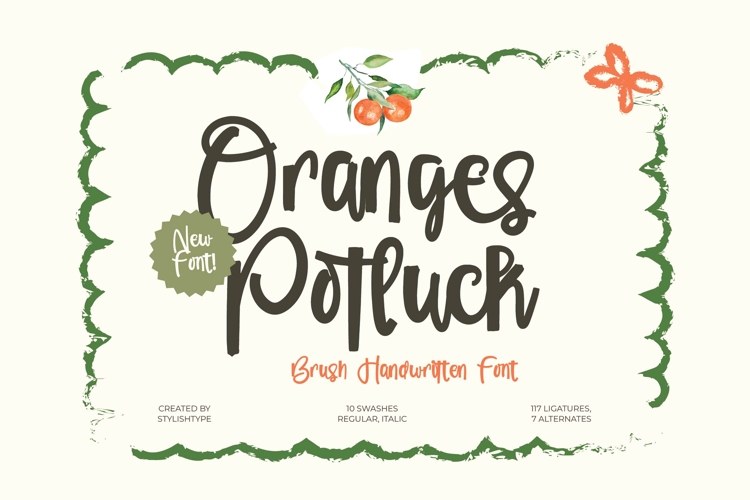
Orange Potluck - Brush Handwritten Font
Orange Potluck - Brush Handwritten Font is the definitive choice for designers seeking to inject genuine warmth and handcrafted personality into their projects. This premium script typeface captures the vibrant spontaneity of an actual brush stroke, delivering a beautiful, flowing aesthetic with noticeable texture variation. Its highly legible yet authentically organic design ensures that your message is conveyed with an immediate sense of approachability and creative flair, making it an essential tool for high-impact visual identity.